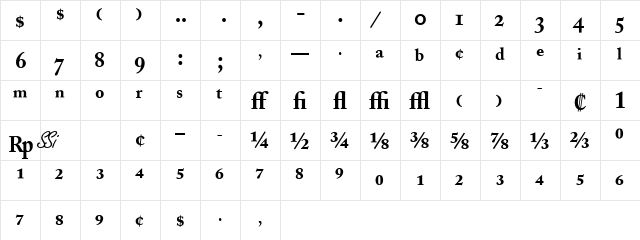
Caslon Pro Black SSi Bold
Design Context for Caslon Pro Black SSi Typeface
Caslon Pro Black SSi takes a measured approach to typography — its balanced proportions and neutral character make it a reliable workhorse for both digital and print work. The heavy weight commands attention and anchors typographic hierarchies.
Pro Tip: Use Caslon Pro Black SSi in both headline and body roles to test its range before committing to a single application.